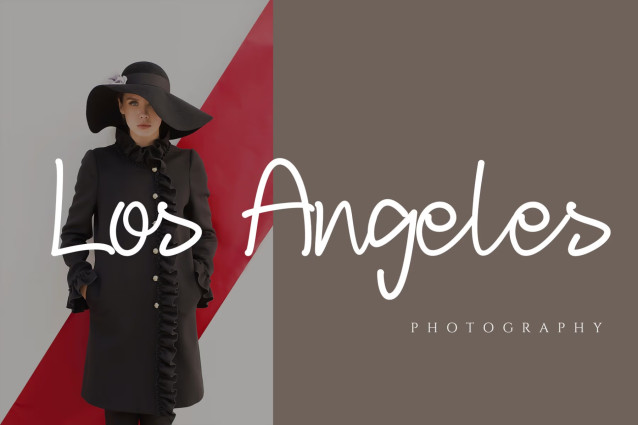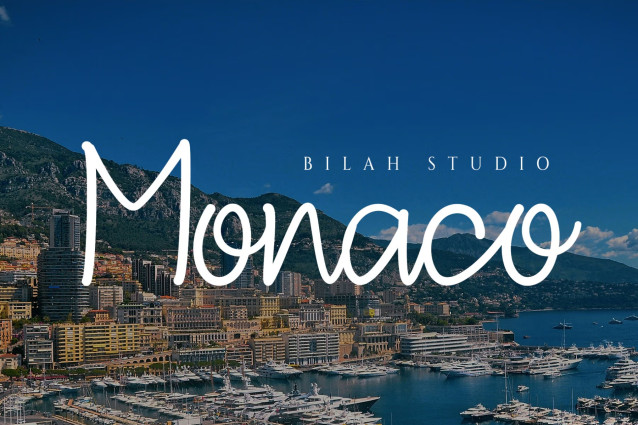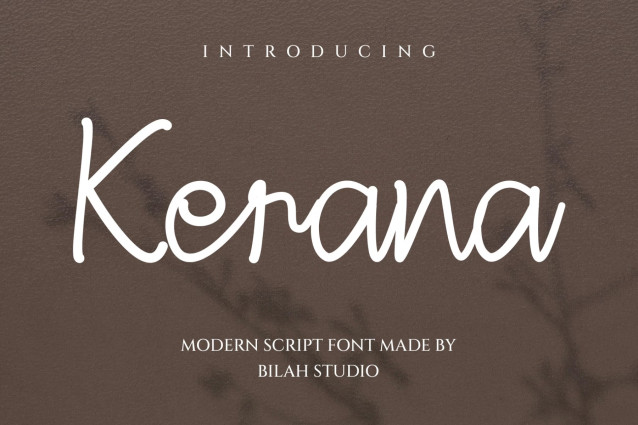
Kerana Handwritten Font
Kerana Handwritten Font is a simple and professional-looking script font with a modern feel and elegant accents, perfect for creating stunning punctuation and stylish text in general. It’s attractive, girly, and elegant, and features a swashes at the beginning and end to enhance your designs.
Kerana Handwritten is a great choice for watermarks, signatures, logos, album covers, magazines, business cards, and many other design projects.